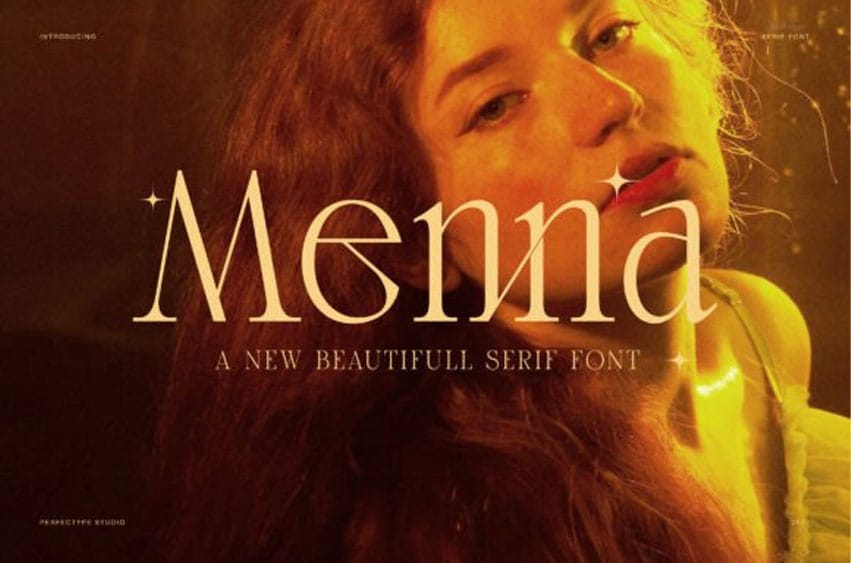
Menna Font is an elegant modern serif font designed to capture confidence and warmth in every stroke. Each curve and serif was crafted to balance strength and grace, creating a visual rhythm that feels refined yet approachable. With its contemporary lines and soft contrast, this font blends timeless sophistication with modern beauty.
Moreover, Menna Serif Font works perfectly for luxury branding, fashion editorials, and creative packaging. Its graceful ligatures and unique alternates allow designers to express personality while maintaining readability. Whether you use it for logos, magazines, or websites, every letter adds depth and emotion to your design.